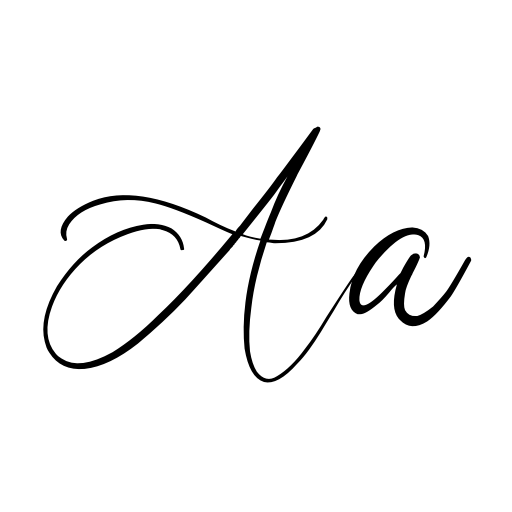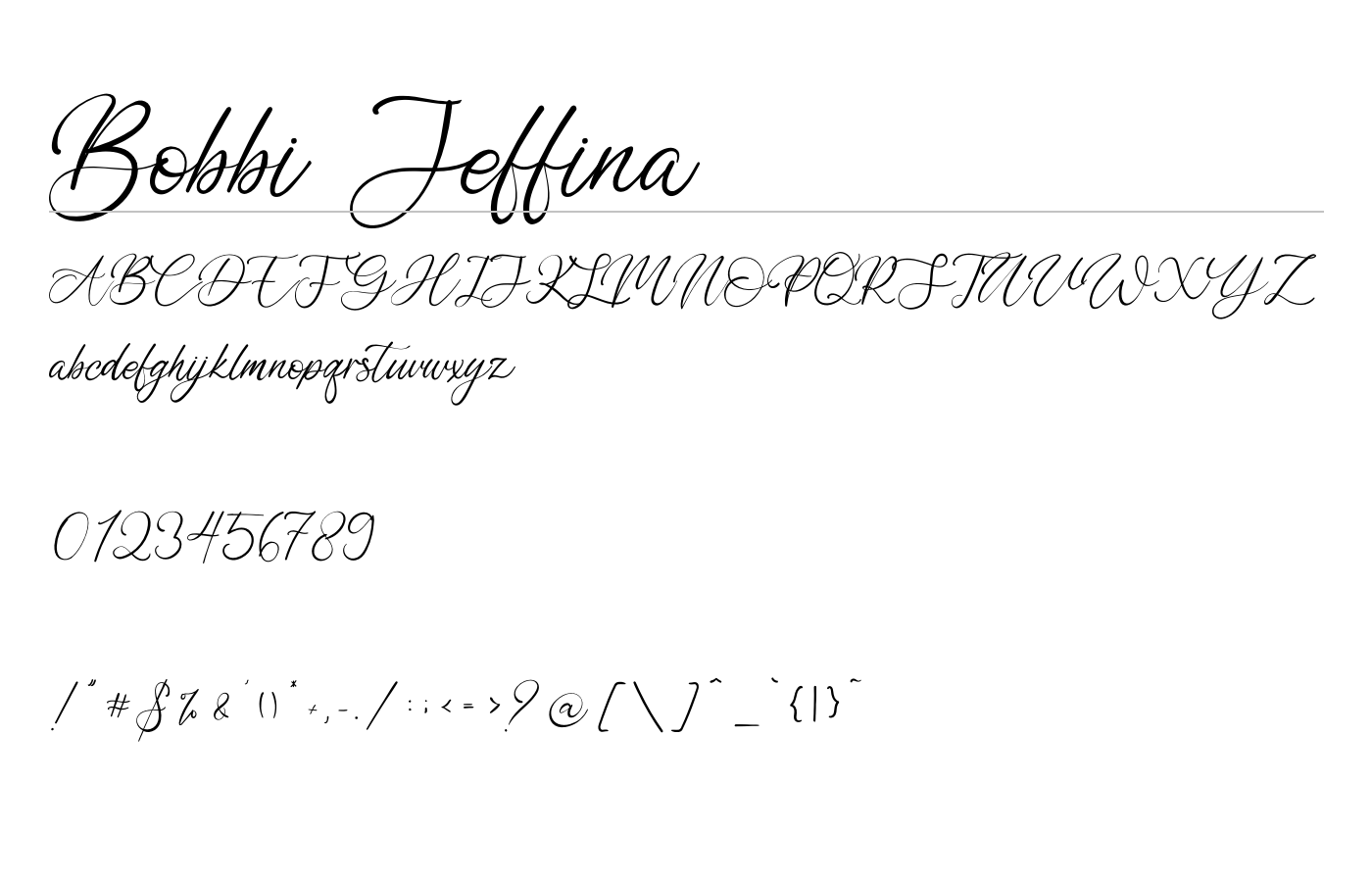
Bobbi Jeffina is an elegant, delicate script font featuring thin, flowing letterforms with a handwritten feel. Its slender strokes and graceful curves give it a refined, sophisticated personality ideal for wedding invitations, fashion branding, and luxury packaging where a personal, stylish touch is desired. The font’s airy, calligraphic style makes it perfect for headlines or decorative text that needs a charming and artistic flair.
Bobbi Jeffina Font
About Bobbi Jeffina Font